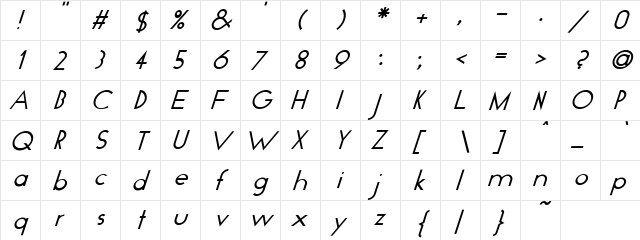
Glo-Italic Regular
Design Context for Glo-Italic Typeface
Glo-Italic offers clean, dependable letterforms without strong stylistic allegiance, making it a practical choice for designers who need flexibility. The slanted form adds forward momentum and visual energy.
Pro Tip: Use Glo-Italic for emphasis, pull quotes, and subheadings where its slanted energy can add rhythm to the layout.